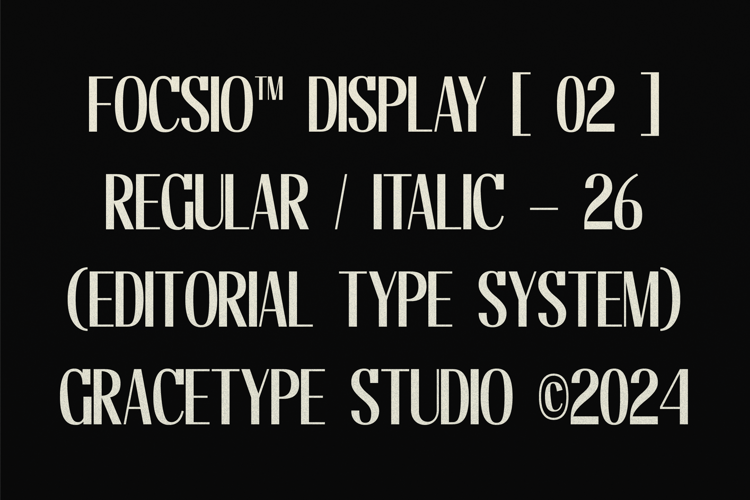
Focsio Font
Focasio | Display Typeface, is suitable for any projects such as: logos, branding projects, homeware designs, product packaging, mugs, quotes, posters, shopping bags, t-shirts, book covers, name card, invitation cards, greeting cards, label, photography, watermark, special events, and all your other lovely projects that need a sans taste.